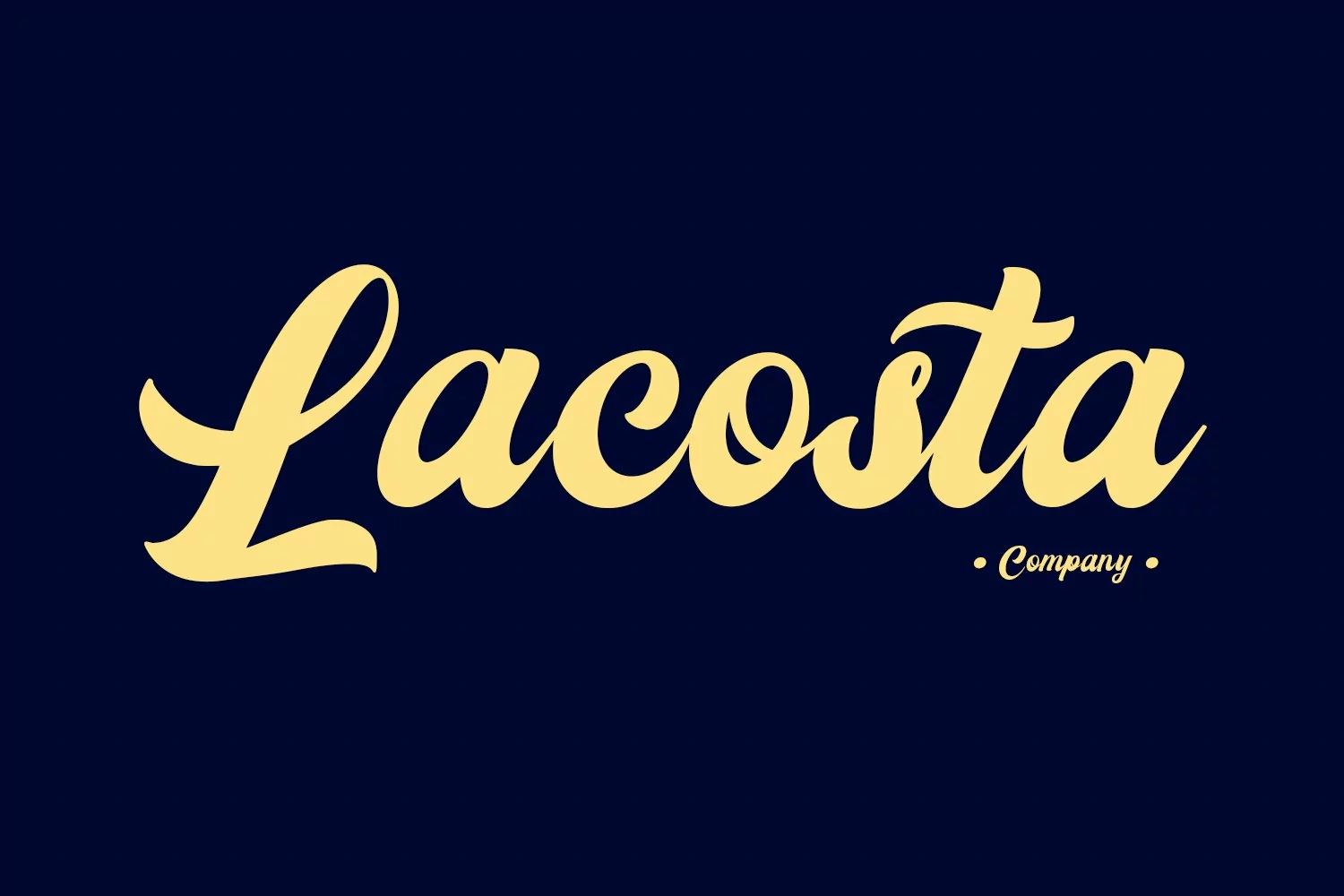
Crankstock a vintage script font. With bold contrast stroke, fun character with a bit of ligatures and alternates. To give you an extra creative work. Crankstock font support multilingual more than 100+ language. This font is good for logo design, Social media, Movie Titles, Books Titles, a short text even a long text letter and good for your secondary text font with sans or serif. Make a stunning work with Crankstock font.